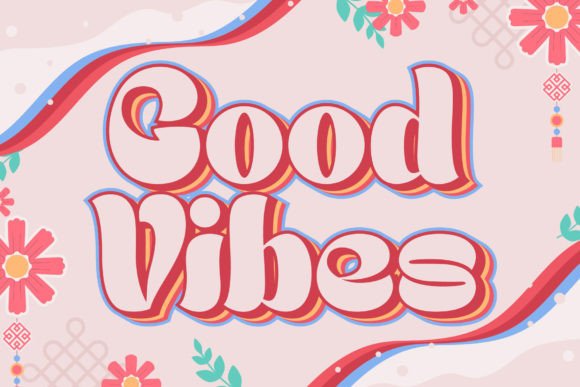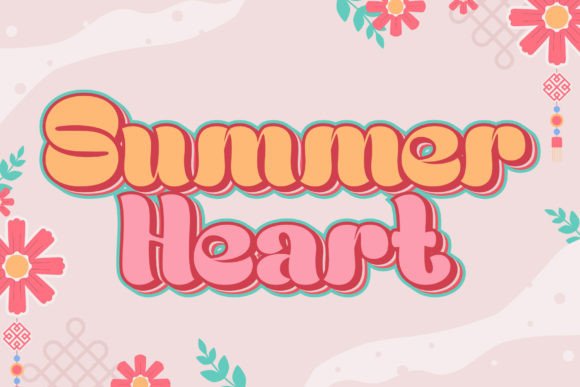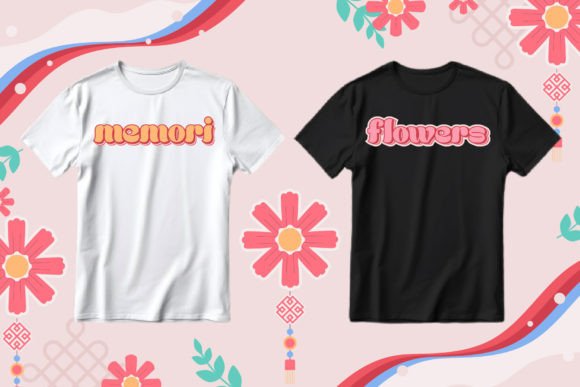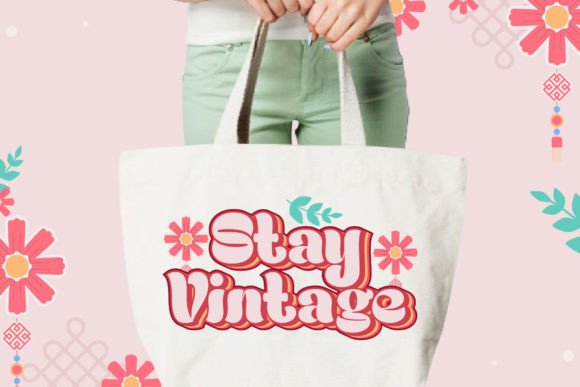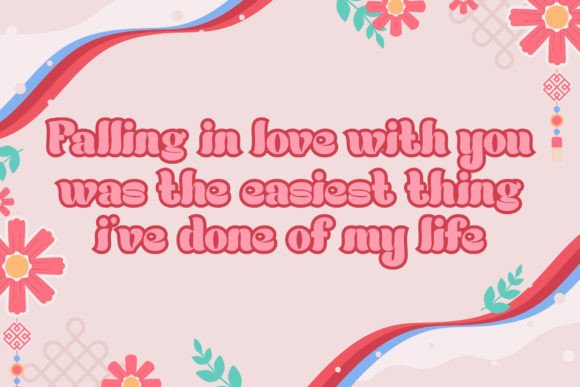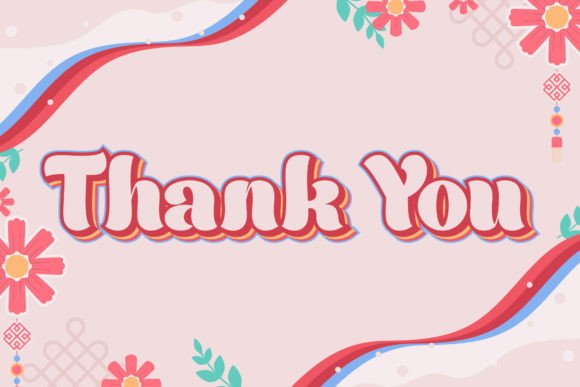
Introduction to Retro Cutie Font
Remember that magical moment when you stumbled upon the perfect font to elevate your creative project? For designers, it’s a feeling like no other – the excitement of discovering a game-changing design resource that sets your work apart. For those who’ve been on the hunt, we’re thrilled to introduce the Retro Cutie Font, a stunning, vintage-style handwritten display font that’s sure to add a touch of retro charm to any design.
Whether you’re crafting a logo, branding materials, or social media posts, the Retro Cutie Font is an absolute must-have. Its PUA encoding makes it incredibly easy to access all the glyphs, giving you the freedom to get creative without any hassle. With its high-quality design and transparent background, this font is perfect for designers who want to add a unique, eye-catching element to their work.
Key Features of Retro Cutie Font
- Retro aesthetic with a touch of cuteness, perfect for creative projects and designs.
- Transparent background, allowing for easy layering and customization in your design.
- Includes a wide range of characters, including uppercase and lowercase letters, numbers, and special characters.
- Supports various font sizes and resolutions, making it suitable for both web and print designs.
- Unique and playful design elements, such as swashes and flourishes, add a touch of whimsy to your creative project.
Honest Review: Retro Cutie Font
I recently stumbled upon the Retro Cutie Font and I have to say, it’s been a game-changer for my creative projects. The high-quality design is perfect for adding a touch of nostalgia to any design.
Here’s what I love about it: ✨
- Its transparent background makes it easy to use in any design, no matter the color scheme.
- The font is highly customizable, allowing me to adjust the size, color, and spacing to fit my needs.
- The font’s unique style adds a touch of whimsy to any design, making it perfect for creative projects.
However, I did encounter a few limitations: ⚠️
- The font is a bit limited in its character set, so I had to get creative with my text formatting.
- The font’s unique style can be overwhelming in large quantities, so I had to use it sparingly.
Overall, I’m thoroughly impressed with the Retro Cutie Font. It’s a fantastic design resource that’s perfect for designers looking to add a touch of retro charm to their projects. With a free download available, it’s a must-have for any designer’s library.
Retro Cutie Font
Introduction to Retro Cutie Font
Retro Cutie Font is a high-quality design resource perfect for creative projects. This font offers a unique aesthetic that’s reminiscent of the past, making it an ideal choice for vintage-themed designs. With its transparent background, you can easily integrate it into your projects without any hassle.
Tips for Getting the Most Out of Retro Cutie Font
To get the most out of Retro Cutie Font, try the following:
1. Use it in conjunction with other vintage design elements to create a cohesive look.
2. Experiment with different font sizes and styles to add depth and visual interest.
3. Use the transparent background to create a sense of depth and layering in your designs.
Common Use Cases for Retro Cutie Font
Retro Cutie Font is perfect for: